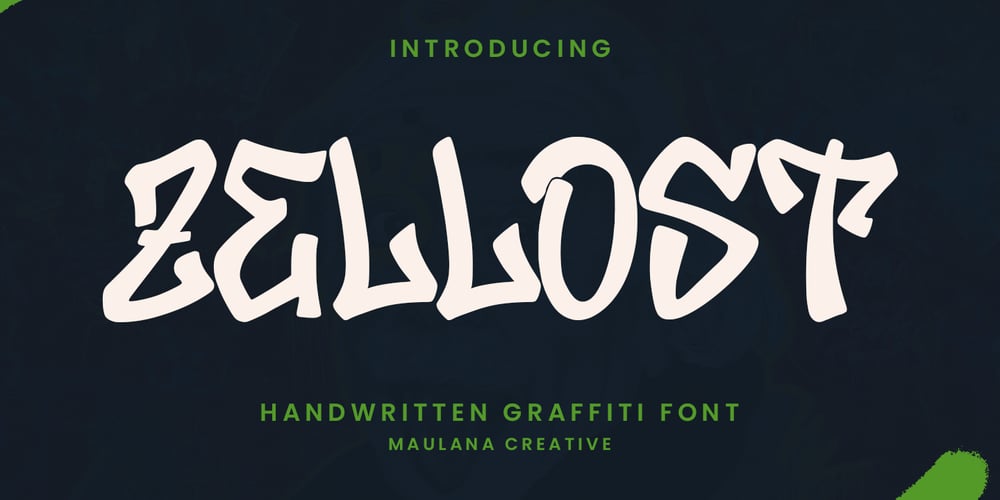
MC Zellost Font Family was designed by Gilang Maulana and published by Maulana Creative. MC Zellost contains 1 styles and family package options. Zellost handwritten graffiti font. Bold stroke, fun character with a bit of ligatures and alternates. To give you an extra creative work. Zellost font support multilingual more than 100+ language. This font is good for logo design, Social media, Movie Titles, Books Titles, a short text even a long text letter and good for your secondary text font with script or serif. Make a stunning work with Zellost font.Cheers,Maulana Creative